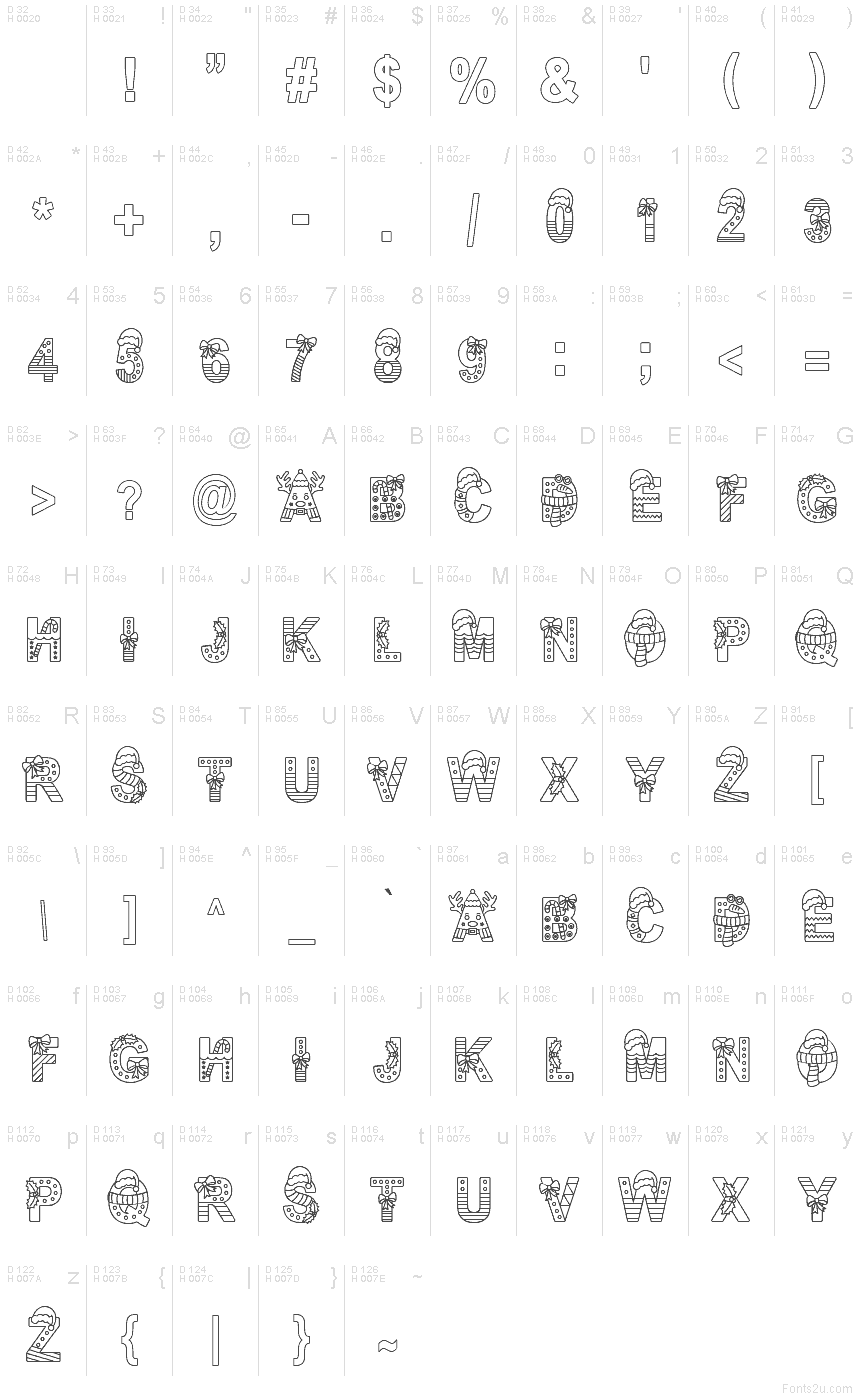
New Born Christmas
New Born Christmas font by Keithzo is a free decorative Christmas typeface that turns every letter into a tiny holiday scene. Each character is outlined and packed with ornaments, candy stripes, stars, and snow-like dots, giving you a playful, hand-drawn look that begs to be colored in. The lines feel crisp but friendly, so text reads like a string of doodled decorations rather than a stiff holiday banner.
Using New Born Christmas, headlines instantly feel festive on kids’ activity sheets, coloring pages, party invitations, posters, classroom decor, and gift tags. This free font shines when used big, where the detailed patterns can really breathe and invite interaction. For body text or smaller captions, pair it with a clean rounded sans serif to keep everything readable while the letters do the celebrating.